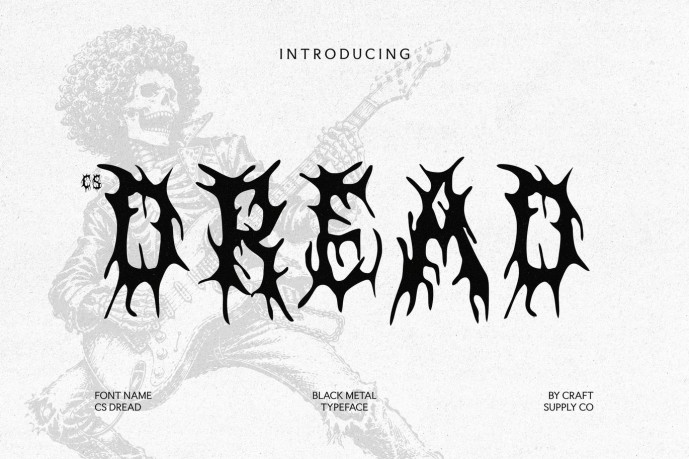
Dread – Black Metal Font
Designer: Craft Supply Co.
CS Dread – Black Metal Display Font: Where Chaotic Darkness Meets Extreme Expression Black Metal Display Font with Uncompromising Intensity This is a black metal display font that embodies the raw energy and brutality of extreme music culture. Featuring jagged spikes, chaotic strokes, and aggressively distorted letterforms, it creates typography that feels fierce, untamed, and instantly recognizable. Every character is designed to project darkness, rebellion, and uncompromising visual impact.
Dark Aesthetic with Extreme Character Inspired by the iconic visual language of black metal artwork, underground music scenes, and dark fantasy imagery, this font delivers a haunting and powerful presence. Its sharp, unpredictable forms evoke intensity and mystery, making every composition feel immersive and emotionally charged.
Aggressive Typography with Unforgettable Presence By combining chaotic construction with razor-sharp details, this font creates a distinctive visual identity that thrives in bold, high-impact applications. Its expressive forms communicate raw power and individuality, making it the perfect choice for designs that embrace darkness, intensity, and fearless creativity.
Perfect for Band Logos, Posters, and Dark Creative Projects Perfect for band logos, concert posters, album covers, music merchandise, horror artwork, gaming graphics, event branding, editorial titles, and edgy creative projects. Its fusion of jagged black metal aesthetics, chaotic strokes, and aggressive display styling makes it ideal for designs that capture the spirit of extreme music and uncompromising artistic expression.